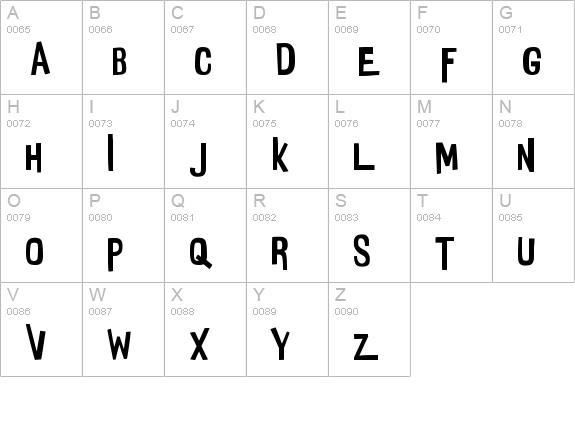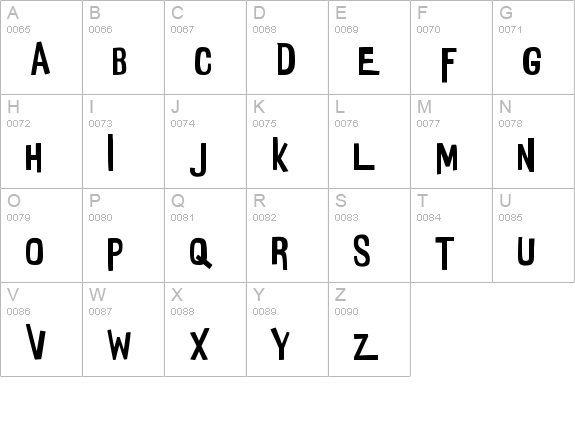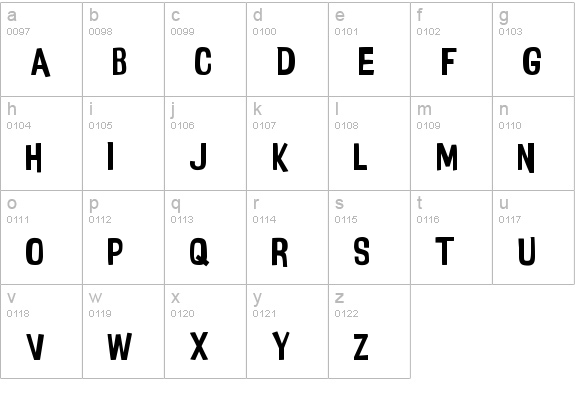
InsideOut4 font is a stylish and modern typeface that combines elegance with a touch of playfulness. This versatile font features unique letterforms with a creative twist, making it ideal for a wide range of design projects. Whether you're creating a logo, branding materials, or a poster, InsideOut4 font is sure to make your text stand out.
What sets InsideOut4 font apart is its free-spirited and dynamic character, adding a sense of energy and personality to your designs. The sleek lines and curves of each letter create a harmonious flow that captures attention and conveys a sense of creativity.